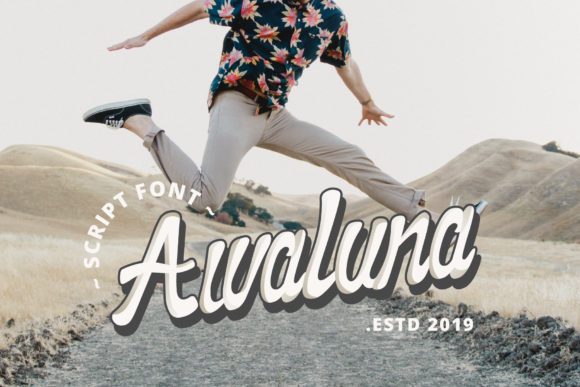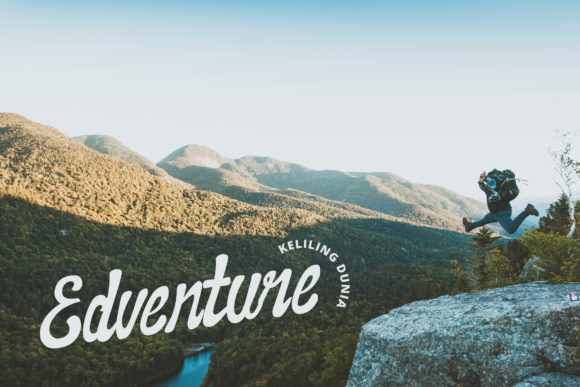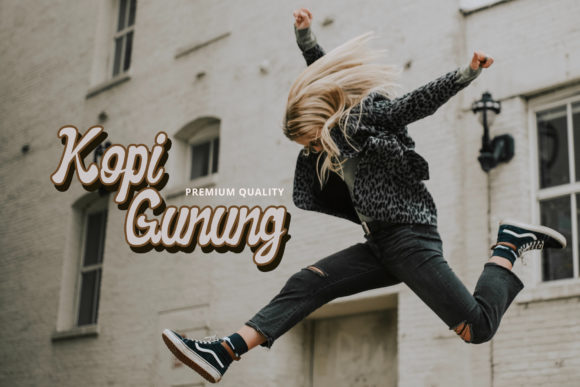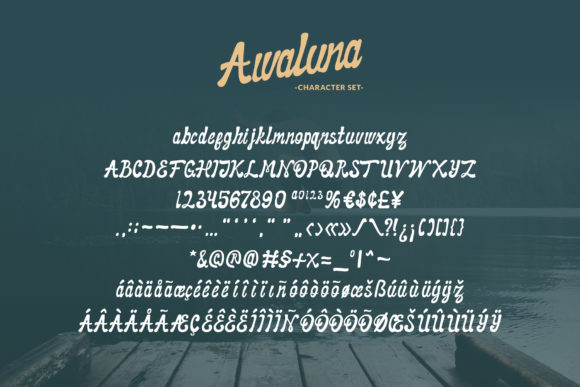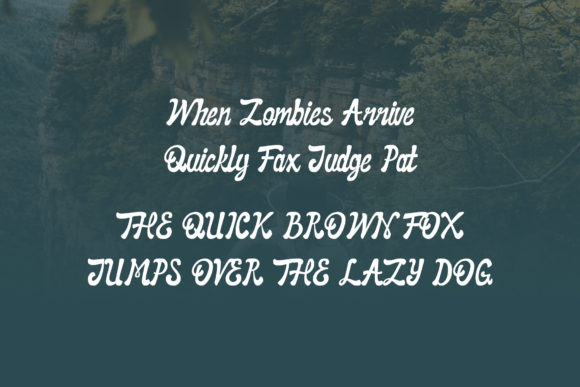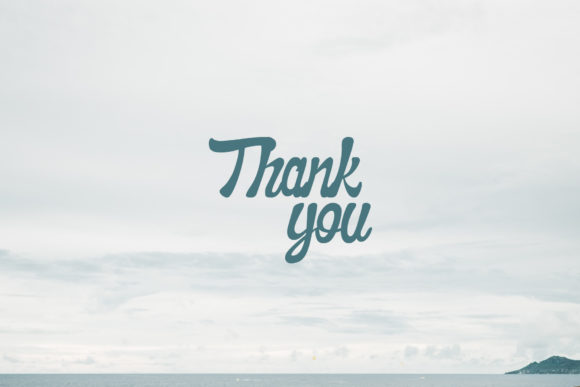
HomeScript FontsAwaluna Font Script Fonts Awaluna Font FacebookXPinterestWhatsApp Awaluna Font Poster 2 Awaluna Font Poster 3 Awaluna Font Poster 4 Awaluna Font Poster 5 Awaluna Font Poster 6 About Awaluna Font Awaluna is a fun and bold handwritten font with a unique charm. Get inspired by its vintage feel! DOWNLOAD NOW People also explored Summer Friendship Font Merlia Font Camberu Font Mataram Font Bubble Flowers Font Smash Font Sony Sporshe Ballita Script Font AbigaiL1980s Font 314 0 TagsAwaluna Font Previous articleBelarimul Meriam FontNext articleYackien Font LEAVE A REPLY Cancel reply Comment: Please enter your comment! Name:* Please enter your name here Email:* You have entered an incorrect email address! Please enter your email address here Website: Save my name, email, and website in this browser for the next time I comment. Personal Use Free Lightning Script Personal Use Free Read more about this font Ammanda Personal Use Free Read more about this font Lion Teen Personal Use Free Read more about this font Colourbars Personal Use Free Read more about this font BLOG Best Fonts for YouTube Videos: Make Your Thumbnails Stand Out Best Fonts for YouTube Videos: Make Your Thumbnails Stand Out Choosing the right font can make a massive difference in how your YouTube videos perform.... Using Fonts in Digital Marketing: Tips to Strengthen Your Brand Identity Where to Buy American Fonts Online in 2024 Best Fonts for T-Shirt Design – Top 2025 Picks